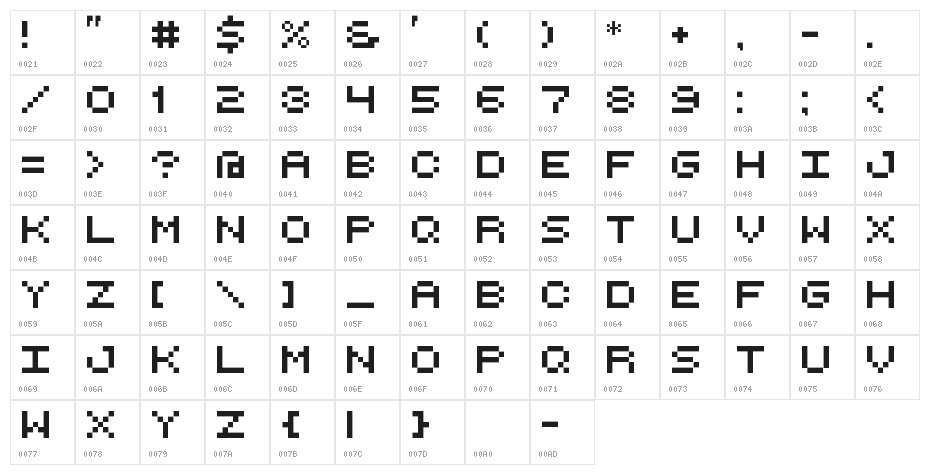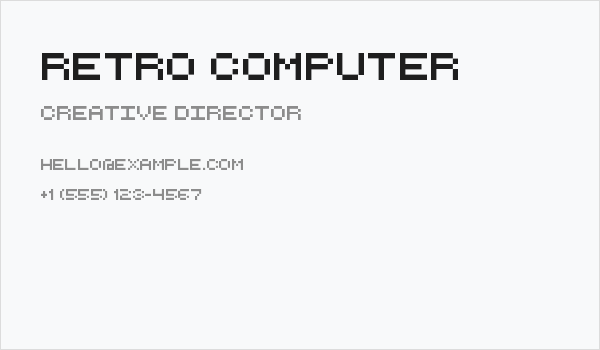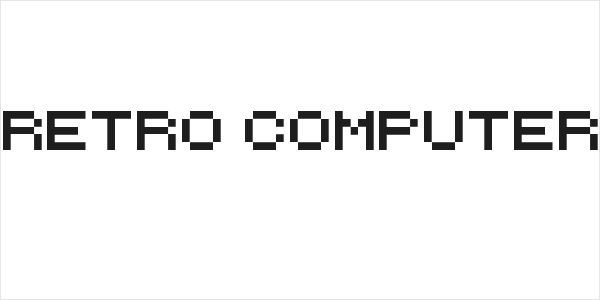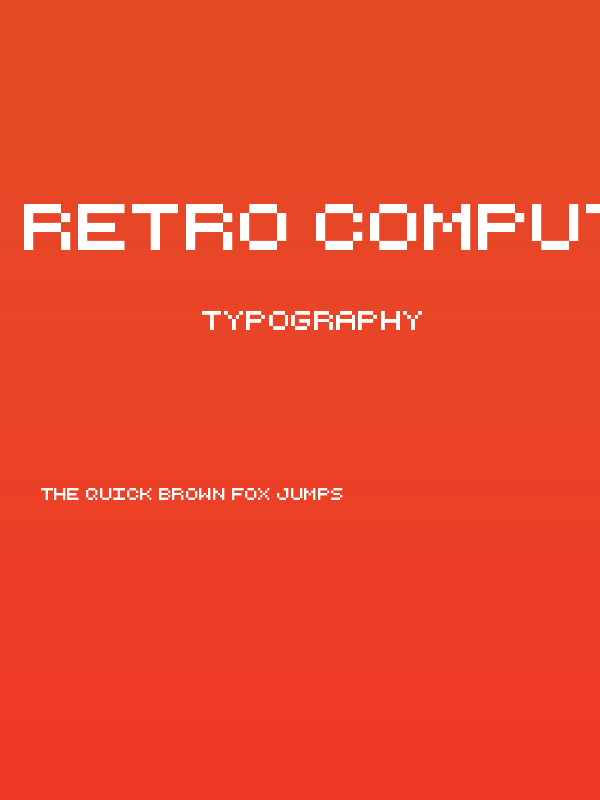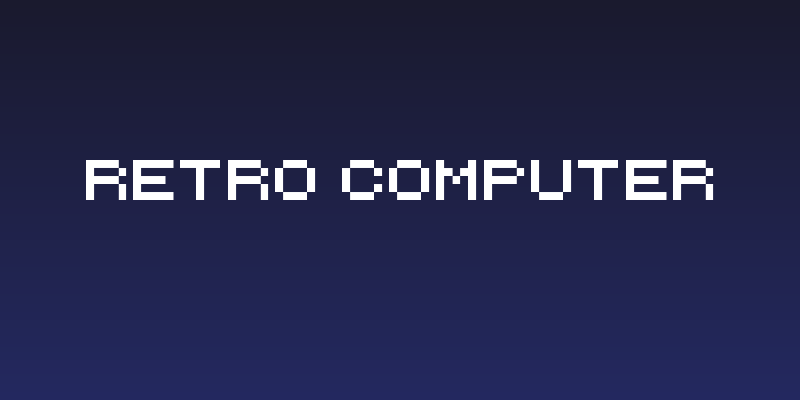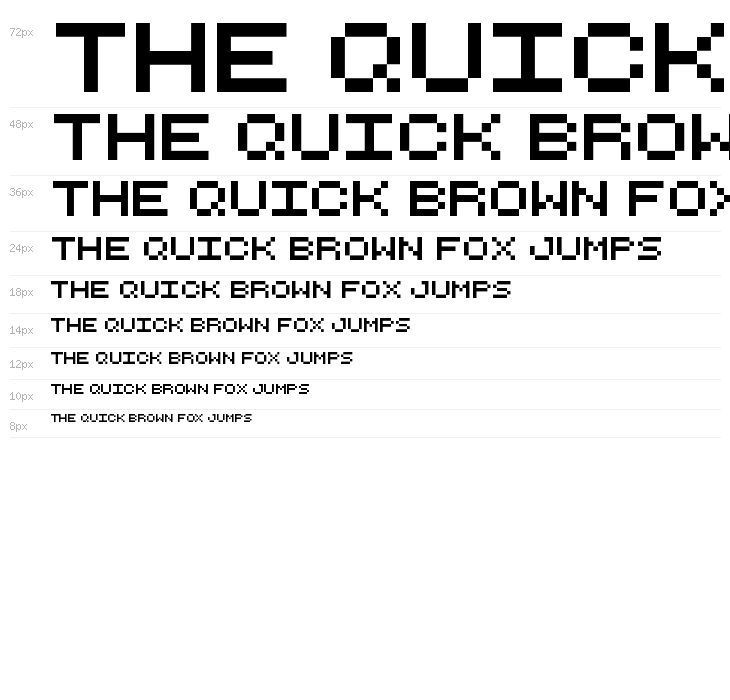
Retro Computer Font
Retro Computer Description
This font embodies a retro, pixelated style reminiscent of early computer and video game graphics. Each character is constructed with a blocky, grid-like appearance, evoking a sense of nostalgia for classic arcade games and 8-bit computing. The uniformity and simplicity of the design make it highly legible, even at smaller sizes. The characters are evenly spaced, maintaining a consistent rhythm across the text. This style is perfect for projects that aim to capture a vintage digital aesthetic or pay homage to the early days of digital design.
| Overall Style | Vintage |
| Use Case | Headlines, Logos, Digital Art |
| Proposed Projects | Ideal for video game design, retro-themed posters, digital art projects, and any creative work seeking a nostalgic digital touch. |